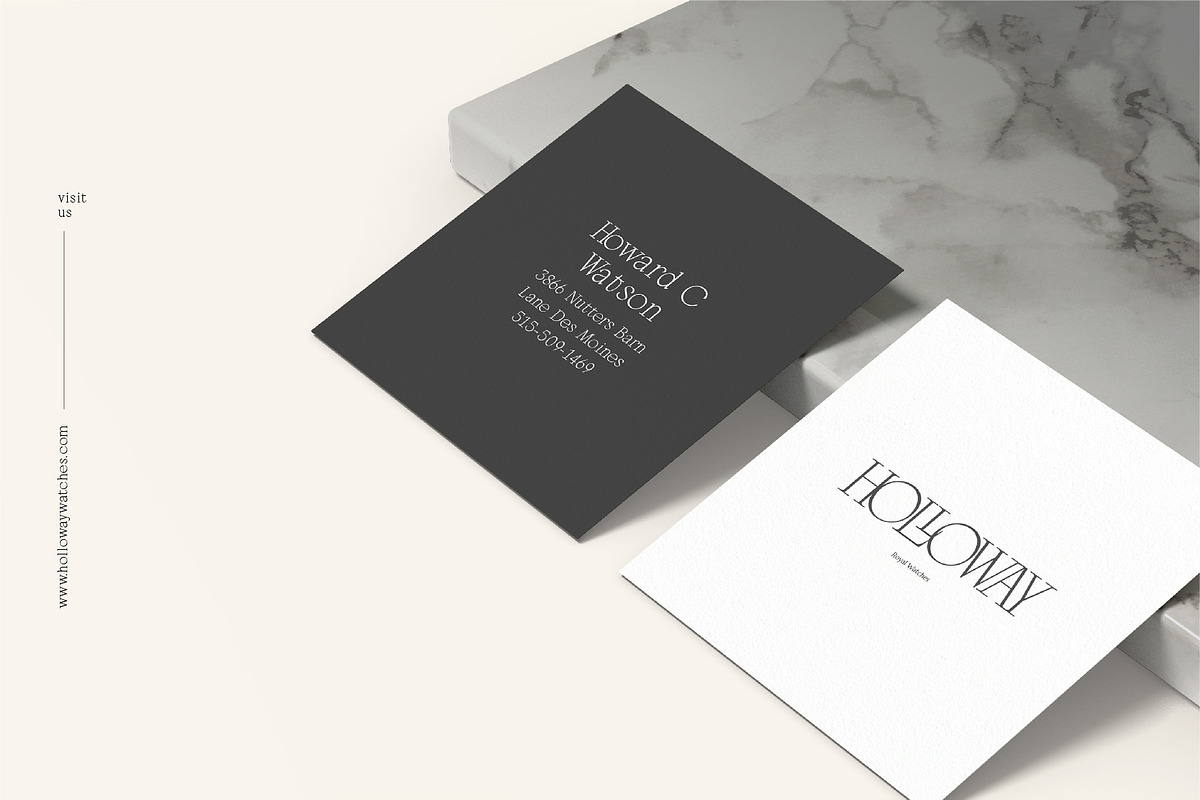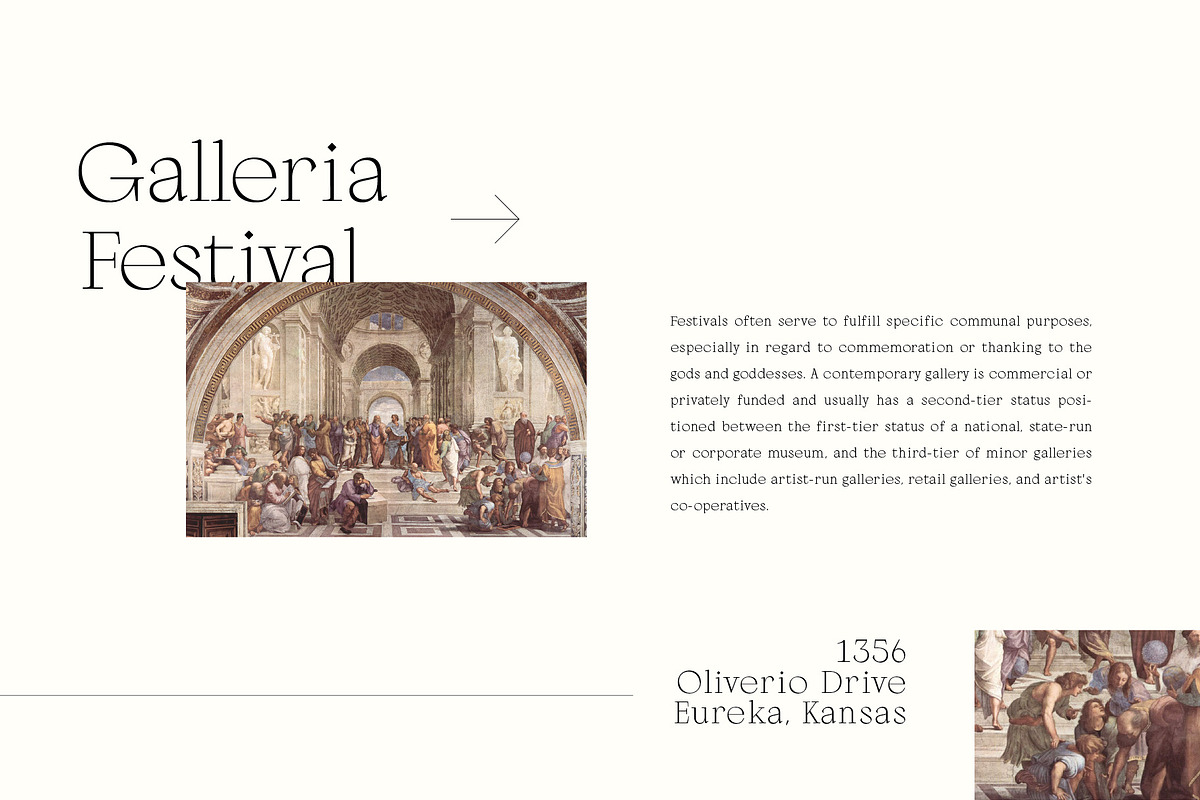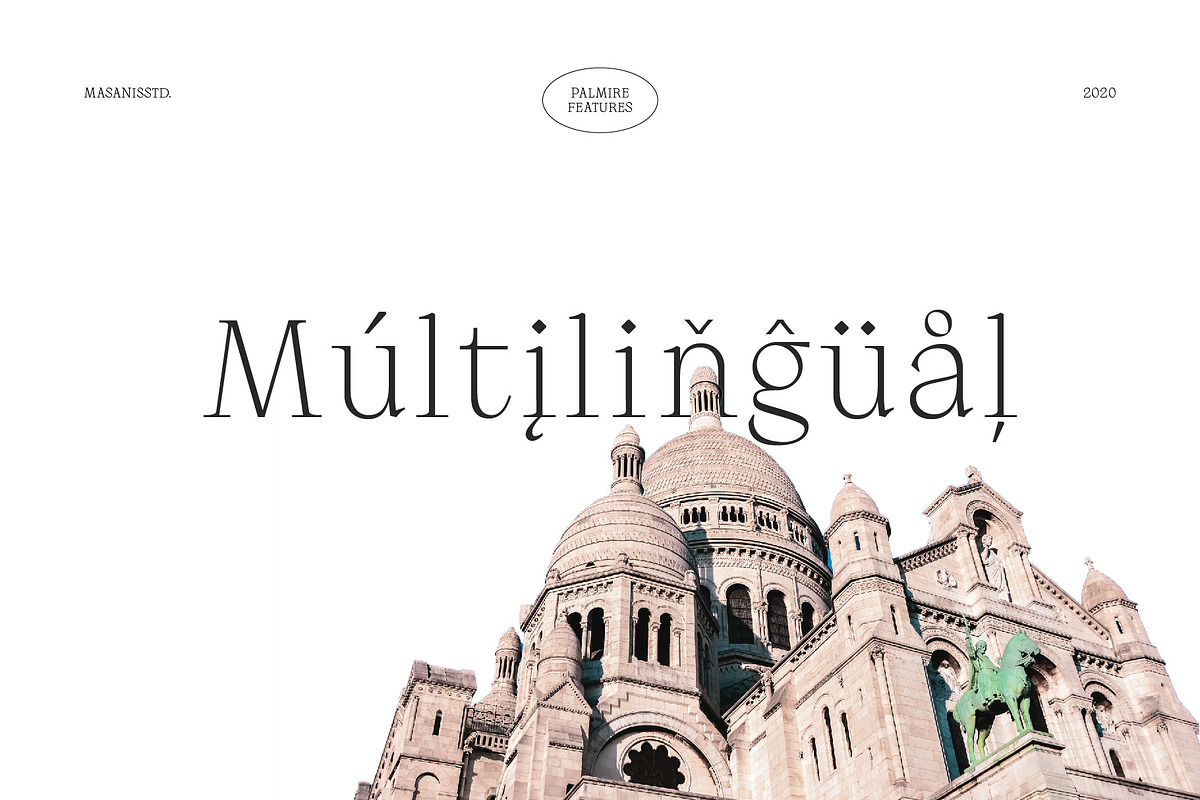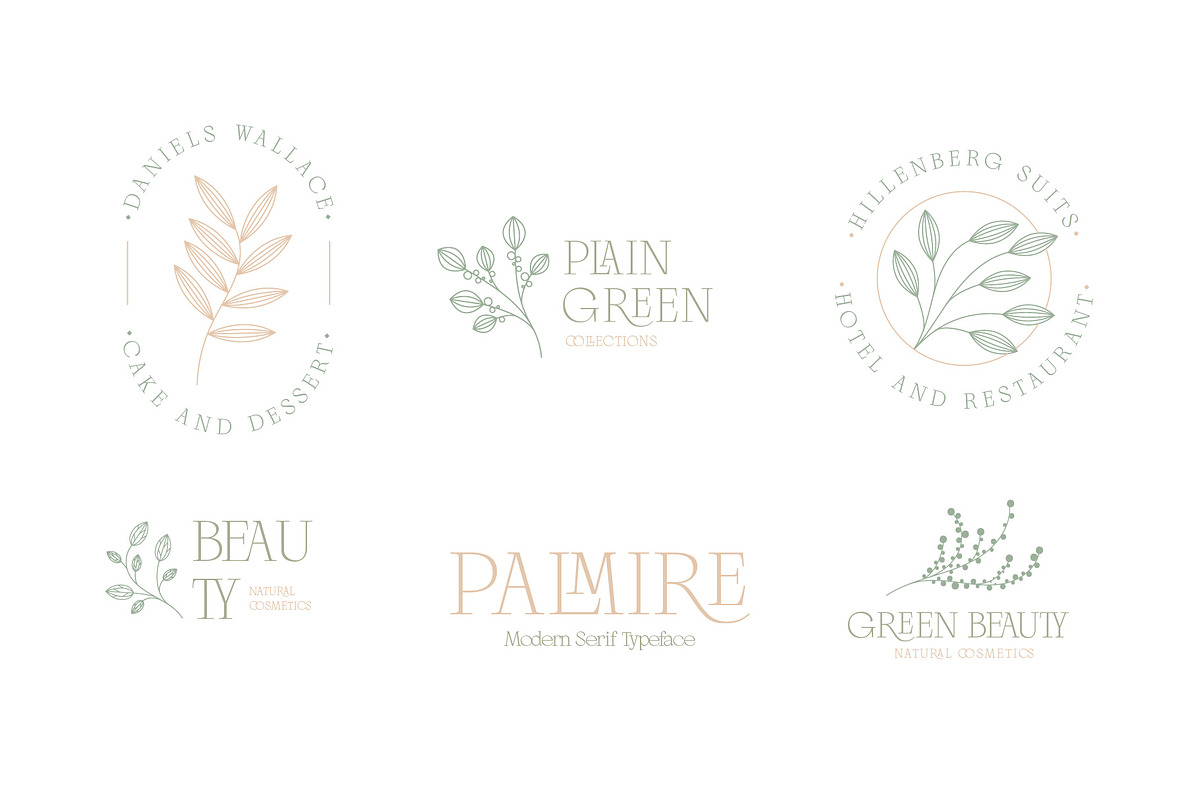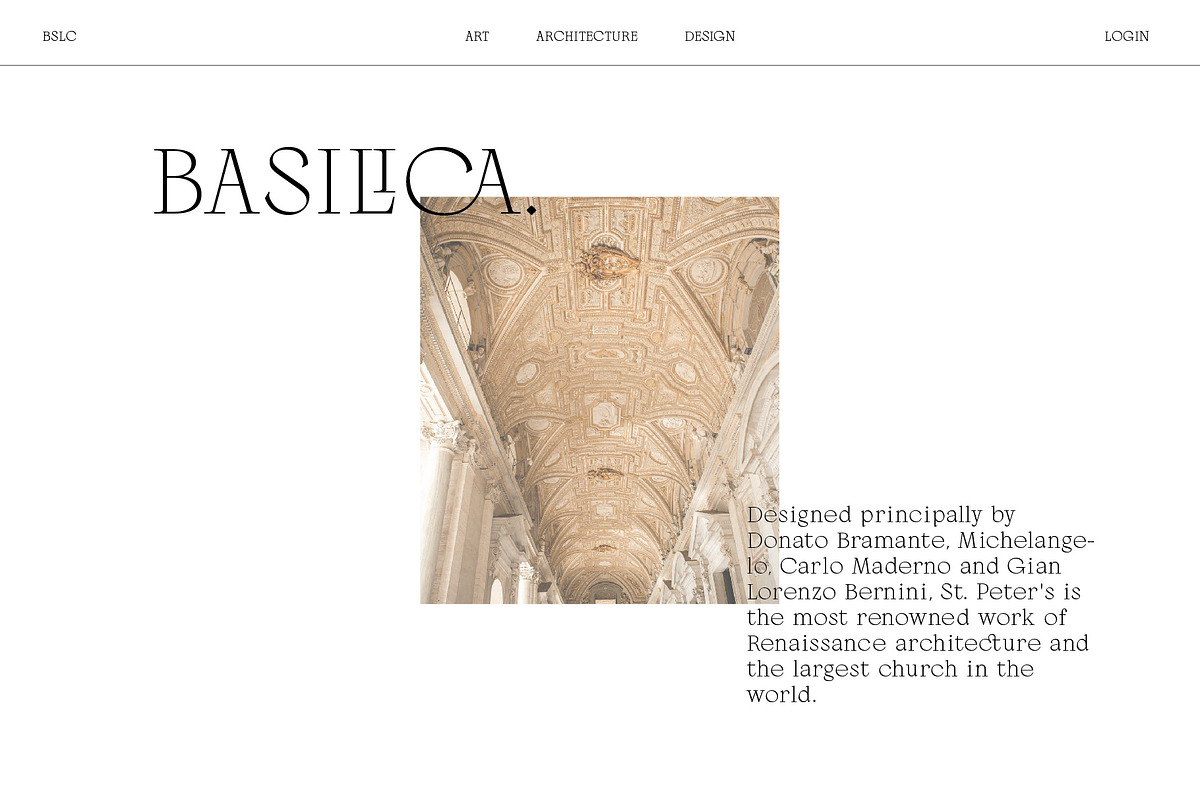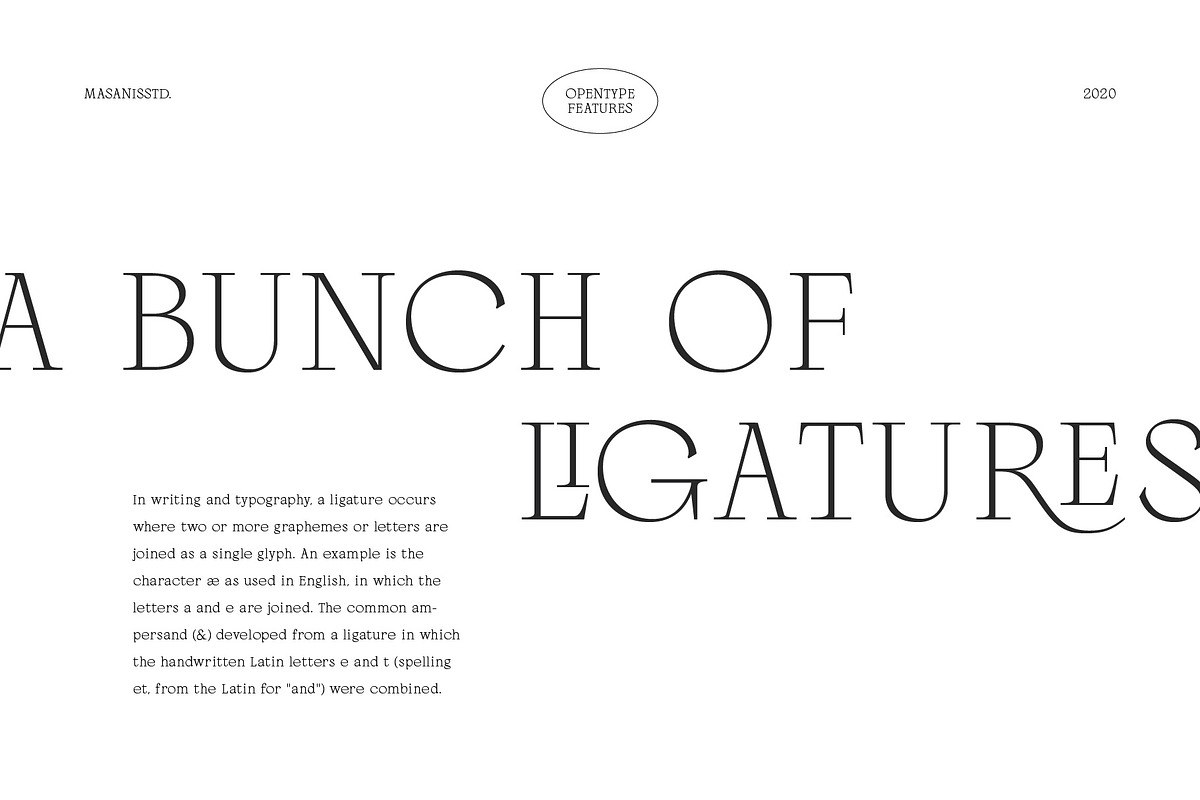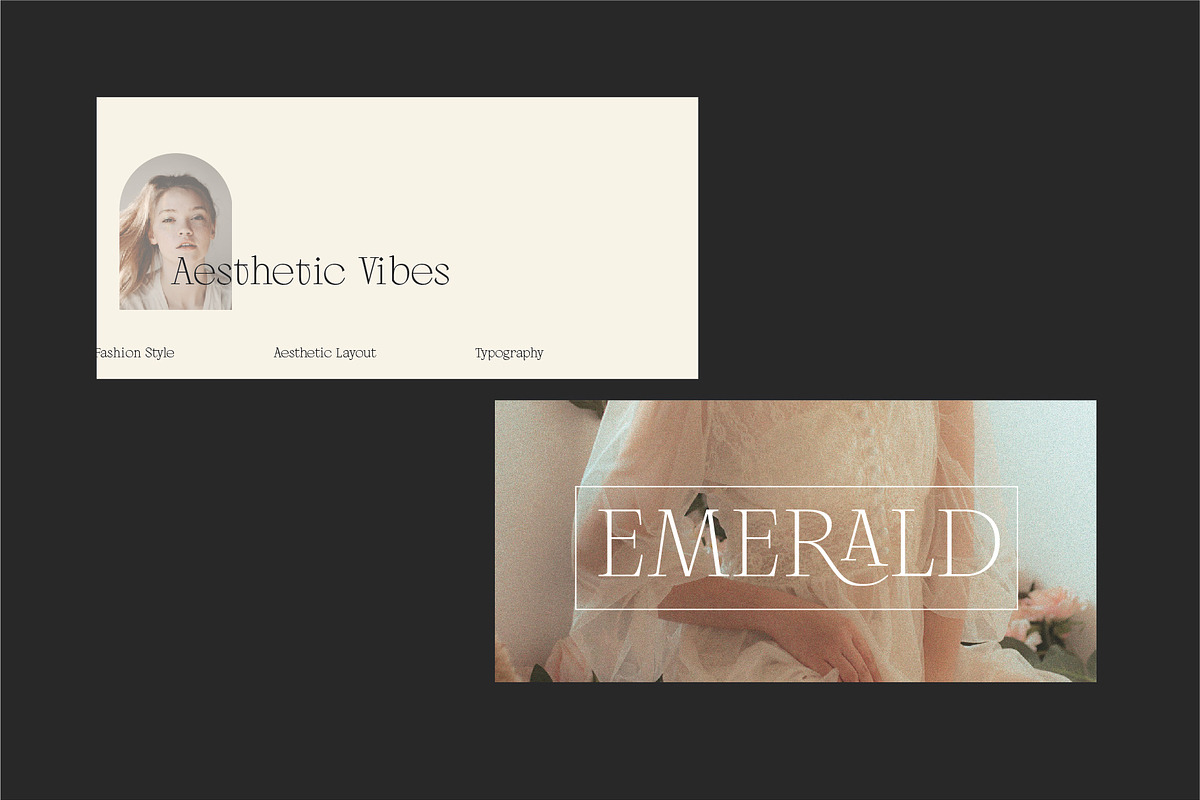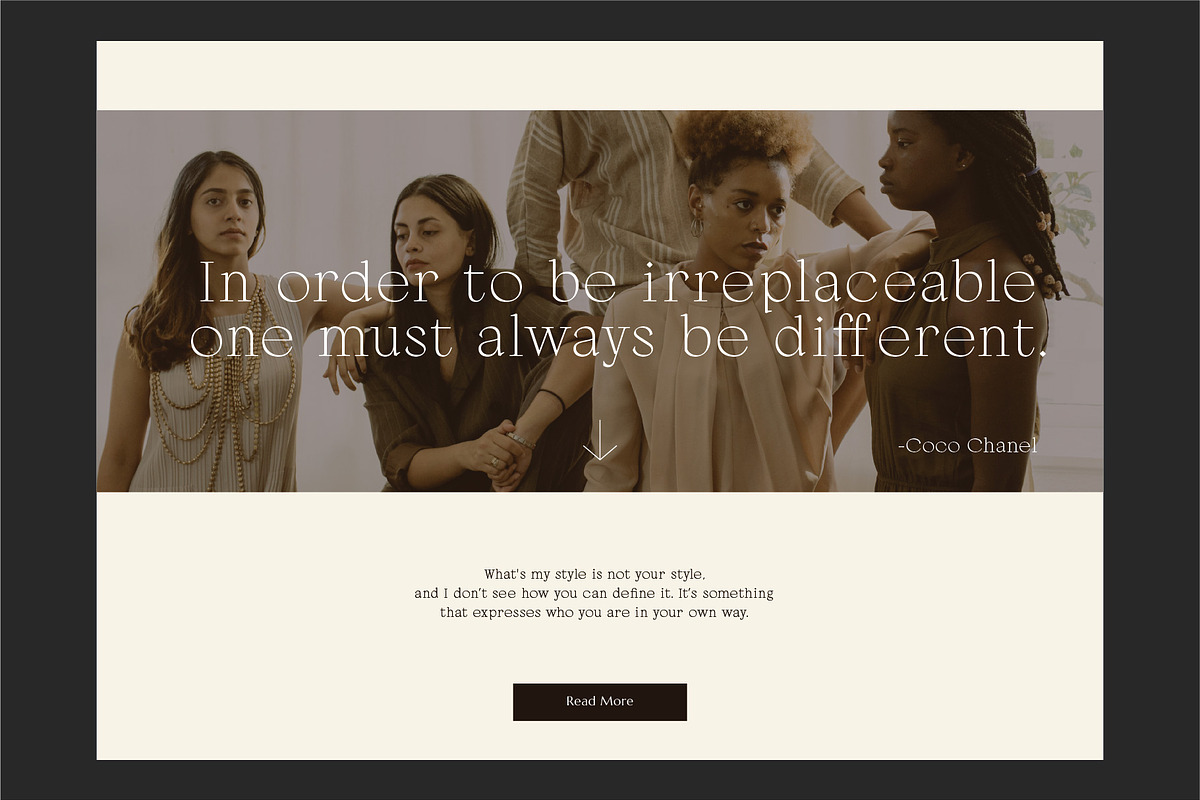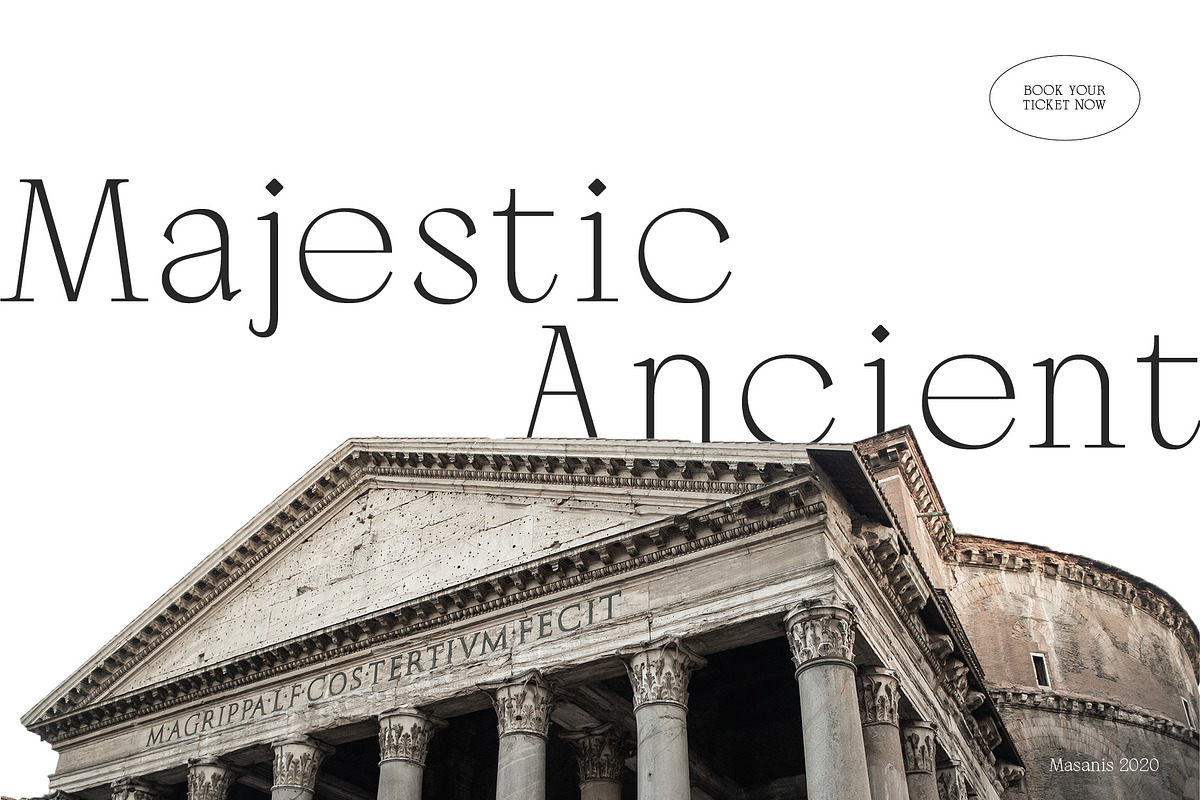
Palmire - Modern Serif Typeface
Hi There! Meet our first modern serif typeface Palmire
Palmire is a stylish font that is both modern and minimal. A light font that is perfect for feminine logo marks, fashion mastheads & editorial design (works great in layout design for quotes or body copy).
The ligatures feature is so amazing, you can convert regular random word to elegant logo just by using the ligature. And there is 75+ ligature to support your amazing design project! Is there anything else? Of course! it has multilingual characters too! We work so hard to keep this elegant font looks elegant, classy, readable, stylish, eye-catching, and easy to use.
You can easily pair them with script or sans serif font from all over the world to make your work more interesting!